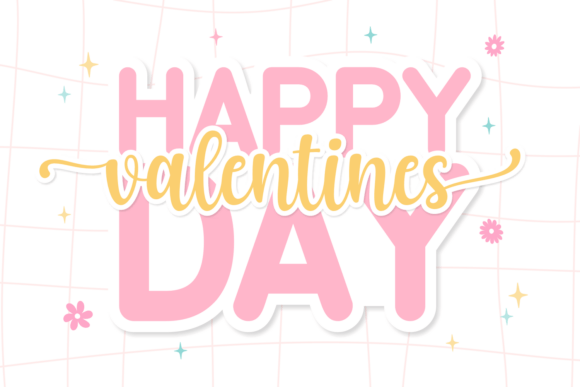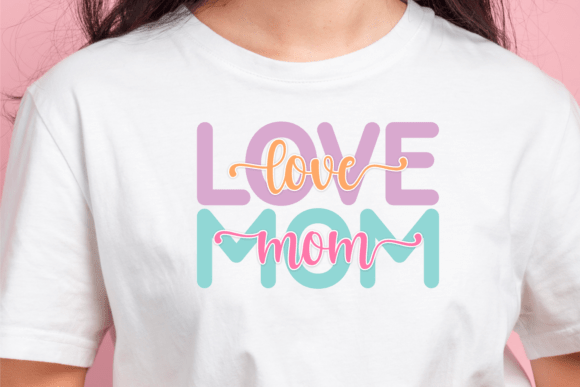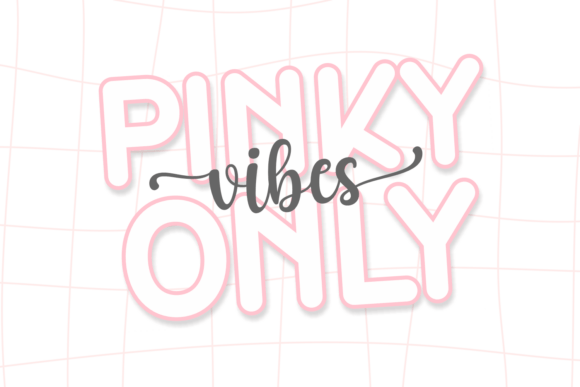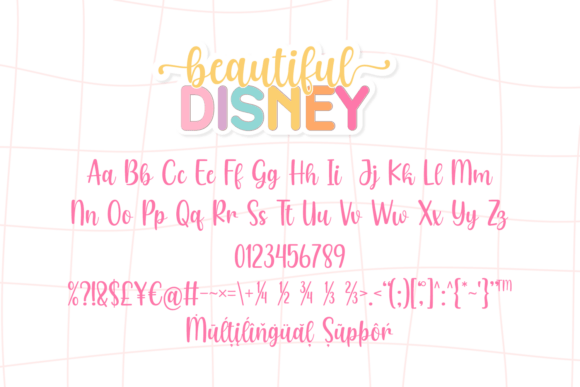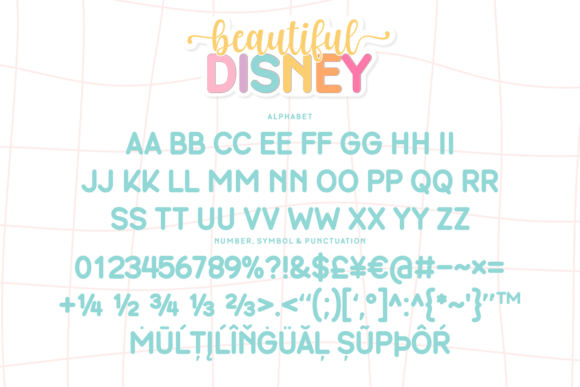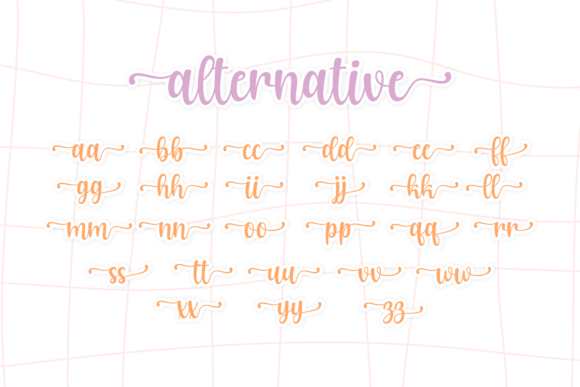
Introducing the Beautiful Disney Duo Font: Elevate Your Designs with Elegant Typography
Immerse yourself in the world of elegant typography with the exquisite Disney Typeface Couple, a delightfully versatile handcrafted font duo that offers a seamless amalgamation of an airy, tall sans-serif display font and a sensuous, undulating script.
The Magic of Contrast: A Harmonious Union of Fonts
The magic of this pair lies in its enchanting contrast, presenting crisp, pastel-tinted block letters as a fashionable foundation and overlaying it with a soft, refined script that exudes a unique, aesthetic appeal. This distinctive design makes the Disney Typeface Couple a standout in the world of typography, perfect for designers and crafters seeking to add a touch of elegance to their projects.
This twin font springs to life when used for beauty salon branding or adorning cosmetic product packaging. It adds a chic touch to fashion blogs and brings a dash of femininity to social media graphics. Whether you’re designing for Valentine’s Day or simply seeking to elevate your brand’s visual identity, the Disney Typeface Couple promises an effortlessly haute couture aesthetic, fit for any design requiring that extra splash of stylish appeal.
Key Features of the Disney Typeface Couple
- Handcrafted with love: Each letter has been carefully crafted to ensure a unique and personal touch.
- Versatile and adaptable: Suitable for a wide range of design projects, from beauty and cosmetics to fashion and lifestyle.
- Dual-font solution: Includes both a sans-serif display font and a script font, allowing for endless creative possibilities.
- Elegant and refined: Perfect for designs requiring a touch of sophistication and glamour.
The Disney Typeface Couple is an ideal choice for designers and crafters seeking to elevate their projects with beautiful typography. With its unique blend of modern and classic elements, this font duo is sure to inspire creativity and add a touch of magic to any design.
Tips for Using the Disney Typeface Couple
- Mix and match: Experiment with different font combinations to create a unique look that suits your design style.
- Play with colors: Take advantage of the font’s pastel-tinted aesthetic and try pairing it with bold, bright colors for a striking contrast.
- Add embellishments: Use the font’s script elements to add a touch of whimsy and personality to your design.
A Unique Interpretation of Valentine’s Day
The Disney Typeface Couple presents a uniquely beautiful interpretation of Valentine’s Day, as only Disney can present. With its elegant and refined aesthetic, this font duo is perfect for creating romantic and eye-catching designs that capture the spirit of the holiday.
With the Disney Typeface Couple, you’ll have a dual-font solution that promises to take your designs to the next level. Whether you’re a seasoned designer or a crafty DIY enthusiast, this exquisite font duo is sure to inspire creativity and add a touch of magic to your projects.
| Font Name | Beautiful Disney Duo Font |
| Author | Riman (7NTypes) |
In conclusion, the Beautiful Disney Duo Font is a must-have for designers and crafters seeking to elevate their projects with elegant typography. With its unique blend of modern and classic elements, this font duo is sure to inspire creativity and add a touch of magic to any design. So why wait? Get ready to immerse yourself in the world of elegant typography with the exquisite Disney Typeface Couple.